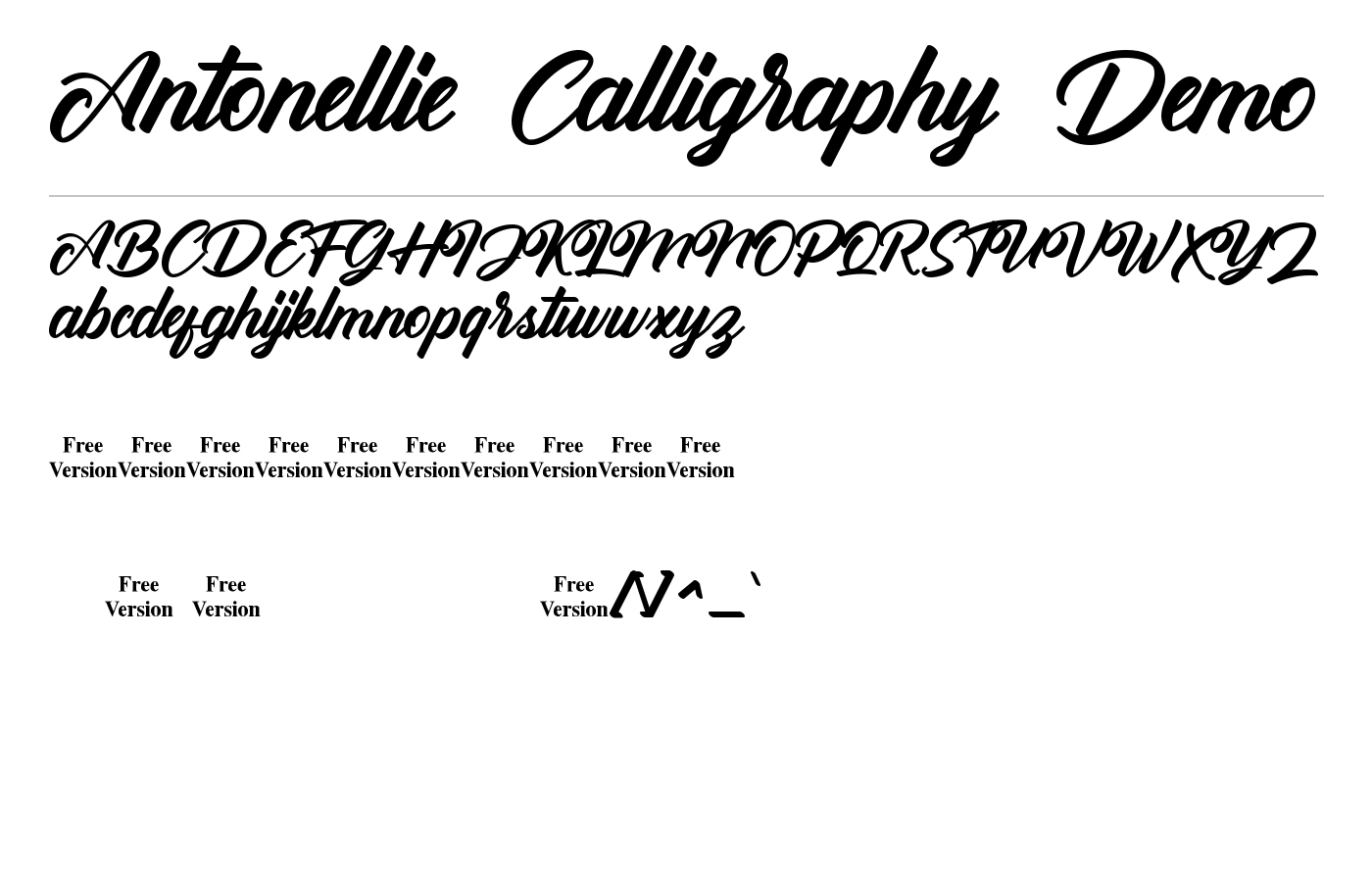
Antonellie Calligraphy Demo is an elegant script font featuring smooth, flowing strokes that mimic natural handwriting with a confident, bold weight. Its connected letterforms and moderate contrast give it a stylish yet approachable feel, perfect for sophisticated branding, invitations, and decorative headlines. This font shines in contexts where a personal, graceful touch is desired, adding warmth and flair without sacrificing readability.
Antonellie Calligraphy Demo Font
About Antonellie Calligraphy Demo Font